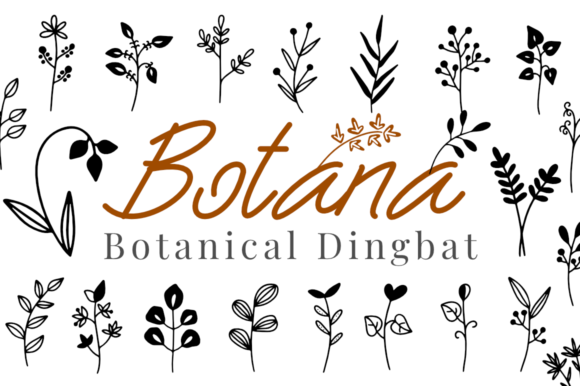
The Designer’s Delight: Unlocking the Charm of Botana Font
I’ll never forget the time I was working on a whimsical craft project, pouring my heart into designing the perfect invitation. The theme was garden party, and I wanted a font that would capture the essence of blooming flowers and delicate petals. That’s when I stumbled upon Botana Font – a game-changer in my design journey.
As I explored its features, I realized that Botana is more than just a dingbats font; it’s a versatile and dainty addition to any font library. Whether you’re a designer, crafter, or creative hobbyist, this font has the potential to elevate your creations and add a touch of elegance.
What I Love About Botana ✨
• ✅ Versatility: Botana’s dingbats can be used in various design projects, from party invitations to branding materials.
• ✅ Elegant and Dainty: The font’s intricate details and delicate lines make it perfect for projects that require a touch of sophistication.
• ✅ Easy to Read: Despite its ornate design, Botana remains legible, even at smaller font sizes.
• ✅ Constantly Inspiring: The font’s unique glyphs and symbols can spark creativity and inspire new design ideas.
• ⚠️ Limited Character Set: As a dingbats font, Botana’s character set might be limited compared to traditional fonts.
• ⚠️ Requires Attention to Detail: Botana’s intricate details can be overwhelming if not used thoughtfully in a design.
The Story Behind Botana: A Glimpse into Designer Inspiration
Botana Font was designed with the intention of capturing the delicate beauty of botanical illustrations. The creator aimed to craft a font that would evoke the feeling of lush gardens and vintage floral arrangements. With its intricate details and elegant lines, Botana has become a go-to font for designers seeking a touch of whimsy and sophistication.
Q: What type of projects is Botana Font best suited for?
A: Botana Font is versatile and can be used in various projects, such as party invitations, branding materials, social media graphics, and craft projects.
Q: Is Botana Font suitable for body text?
A: While Botana is elegant and legible, it’s recommended to use it for headings, titles, or short paragraphs due to its ornate design.